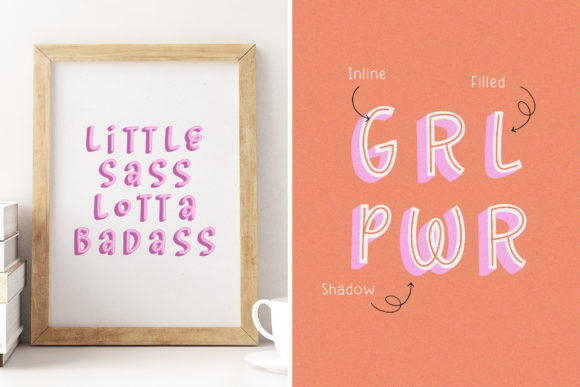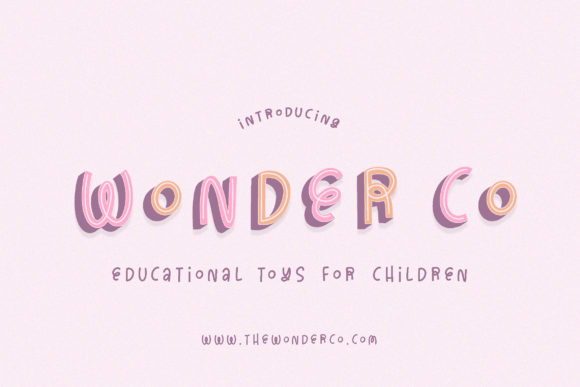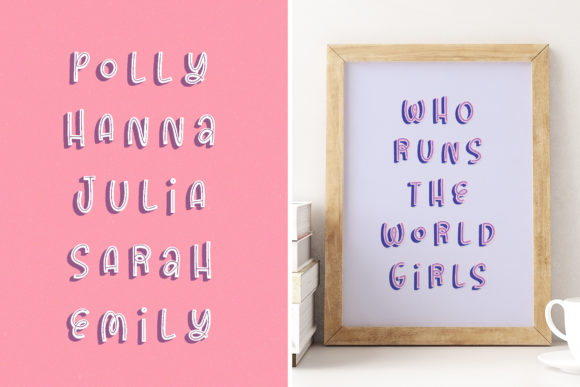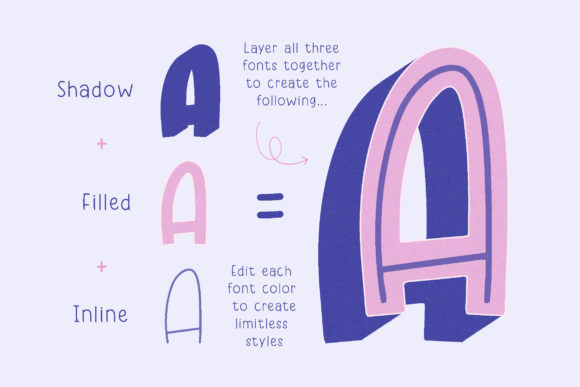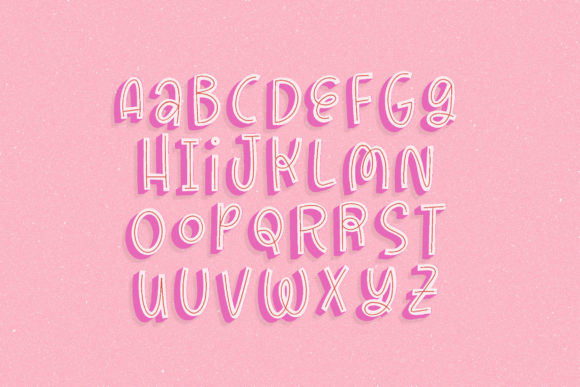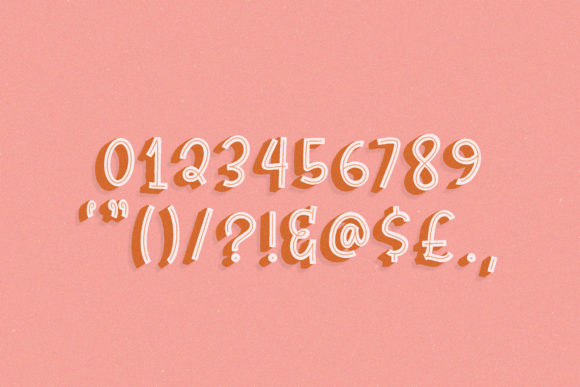
Powerful Trio Font
Powerful Trio is a fun and casual display font, with three sized display fonts. Whether you’re using it for crafts, digital design, presentations, or making greeting cards, this font has the potential to become your favorite go-to font, no matter the occasion!